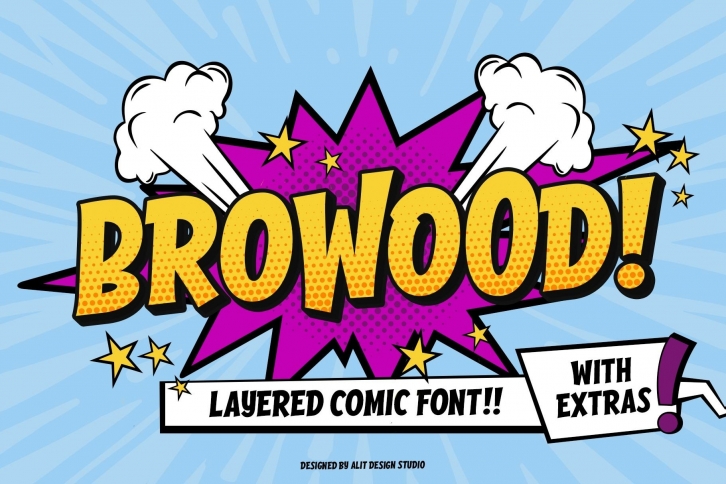
Browood Layered Comic is a trendy and unique font with an authentic style. It was designed by alit suarnegara and it's a great choice for creative people who need such a font. It was released on November 1, 2022 and the file size is 12.1 MB. Browood Layered Comic will add an organic vibe to any design idea!